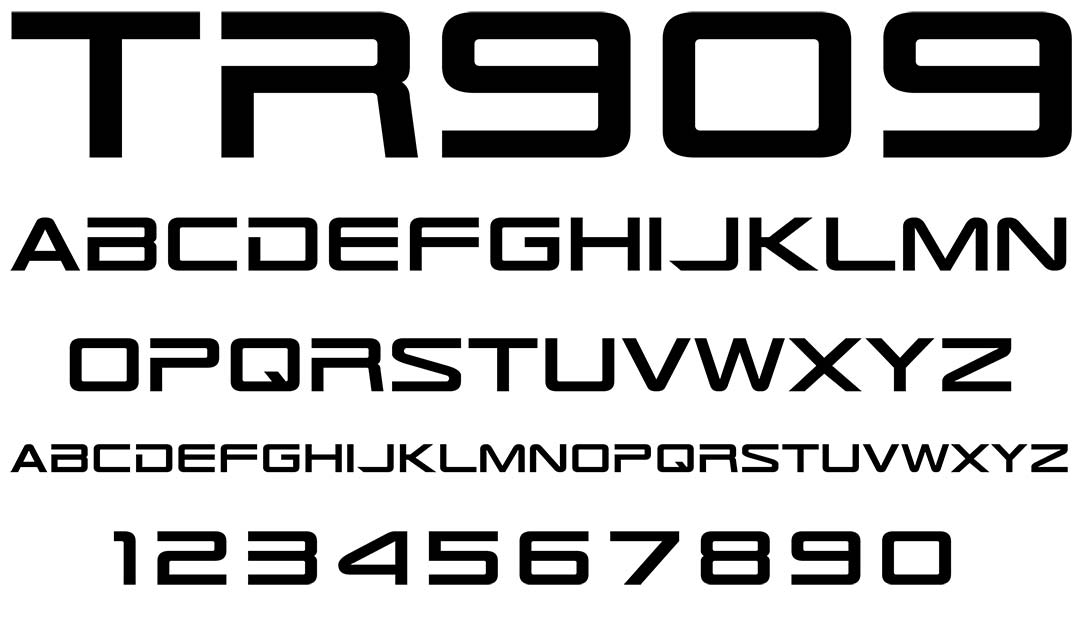
TR909
TR909 Graffiti Alphabet
TR909 Graffiti Font Family
A TR909 is a classic drum kit (also the name of several drum machines) often used in Hip Hop Music. This font is made to match the TR909 logo from a Roland variation circa 1994. This font is well made & clean.